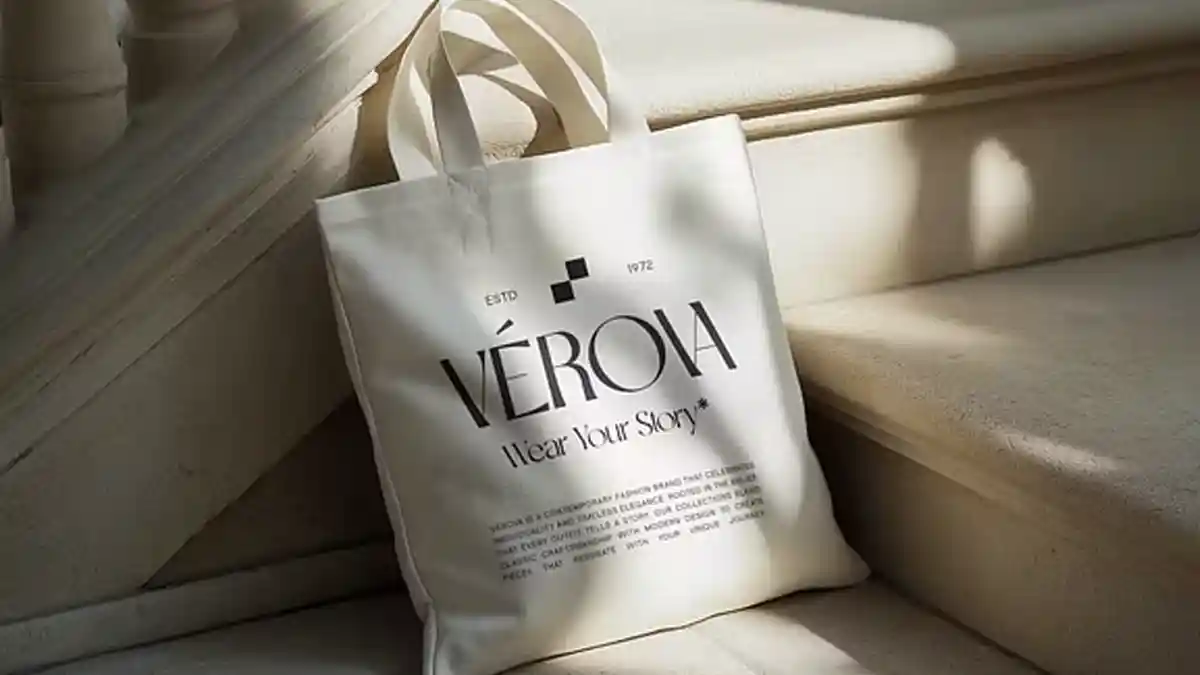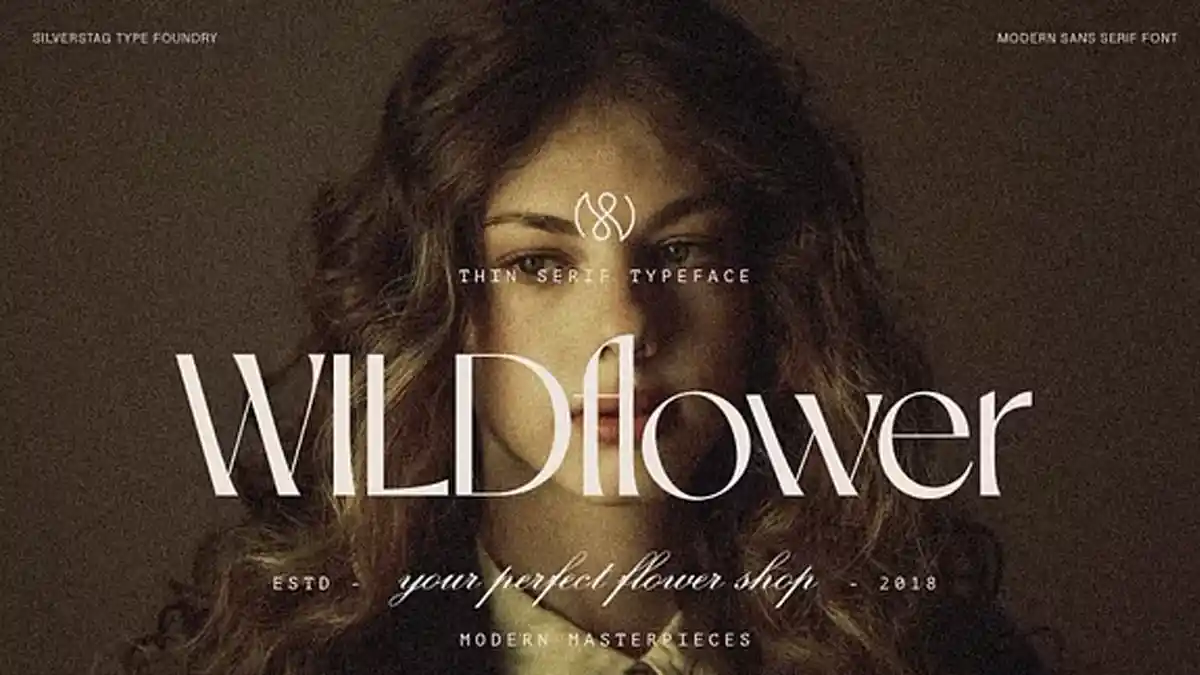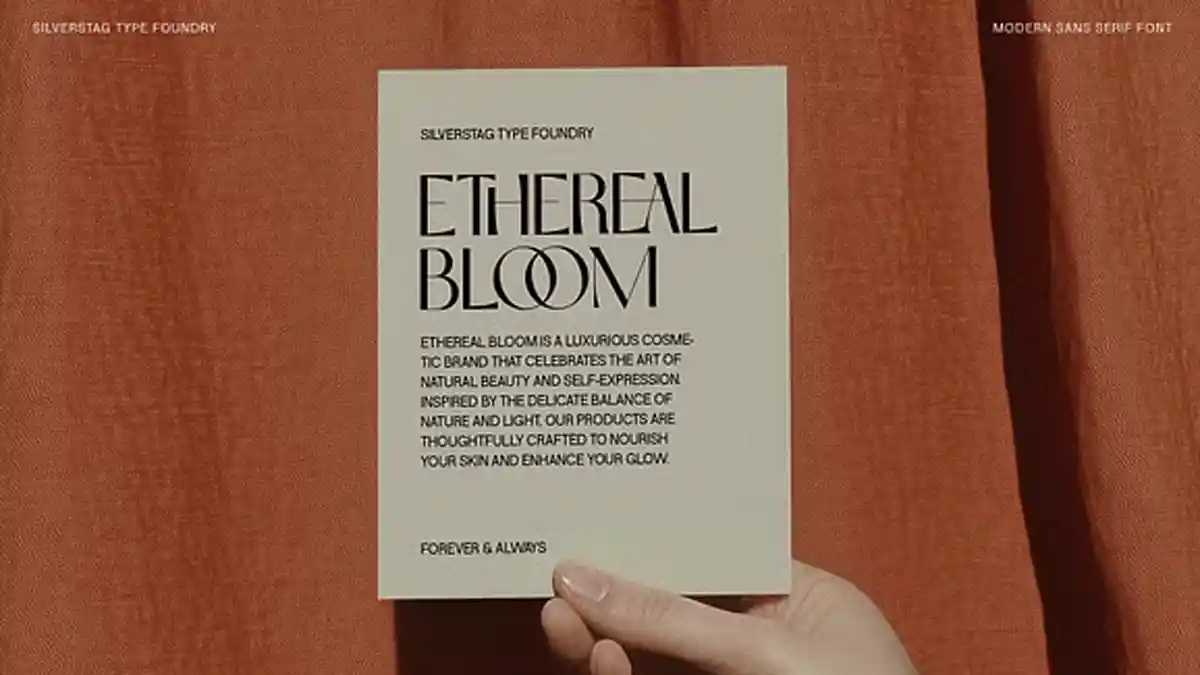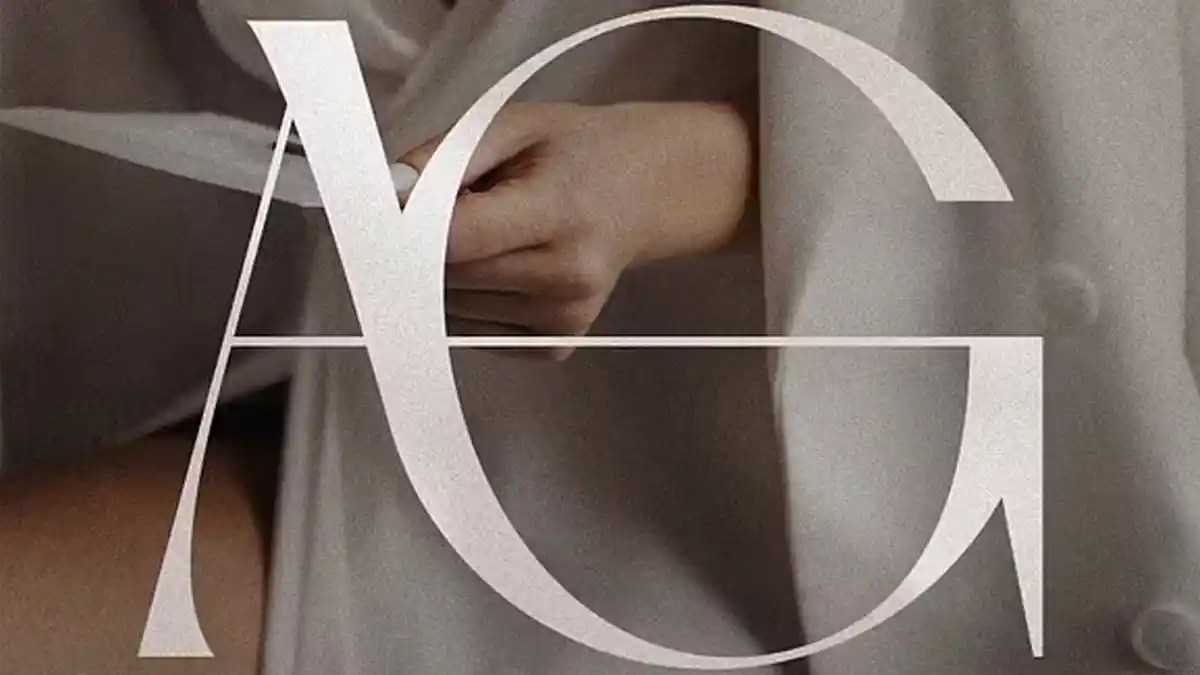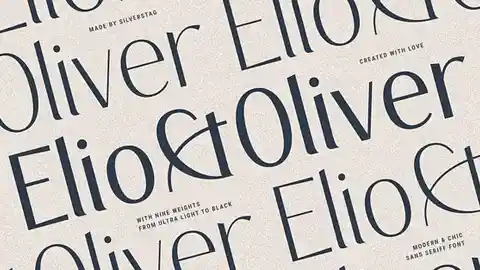
The world of typography is constantly evolving, with new premium fonts emerging and gaining popularity yearly. While predicting trends is always a bit of a gamble, there’s a strong feeling that SLTF Night Windfall – Ligature Sans is poised to become a major player in the 2025 font trend and becomes a star in premium fonts.
This elegant and sophisticated serif font, with its flowing ligatures and delicate curves, has a unique charm that will captivate designers and brands alike. Here’s why we think Night Windfall will be the next big thing:
Versatility:
Night Windfall, one of the best among the premium fonts, strikes a beautiful balance between classic and contemporary. It’s at home in minimalist logos, elegant invitations, and bold headlines.
Unique Character:
The ligatures, where two letters seamlessly connect, add a touch of artistry and sophistication that sets it apart from other serif fonts and makes it a perfect choice for unique font downloads.
Growing Recognition: We’re already seeing hints of Night Windfall appearing in high-profile design projects, suggesting that it’s gaining traction within the design community and becoming the 2025 font trend.
Social Media Appeal:
The font’s visual appeal makes it perfect for social media graphics, where it can stand out and grab attention.
Perfect for a Wide Range of Applications:
How to Use Night Windfall:
Logo Design
Use Night Windfall for brand identities, stationery, and marketing materials.
Branding
Add a touch of sophistication to your Canva, Squarespace, and Webflow Templates.
Editorial Design
Elevate magazine layouts, book covers, and website headers with its distinctive style.
Social Media Graphics
Create eye-catching social media graphics that will make your brand shine.
Wedding Invitations
Add a touch of timeless elegance to wedding invitations and other stationery.
We believe that 2025 will be the year of Night Windfall. By incorporating this elegant font into your design projects, you can stay ahead of the curve and create truly unique and memorable work.
Disclaimer: This is a prediction, and trends in typography can be unpredictable. However, based on its aesthetic appeal and growing popularity, we believe that SLTF Night Windfall – Ligature Sans has the potential to become a major force in the design world.
I encourage you to experiment with Night Windfall and see how you can incorporate it into your own creative projects.